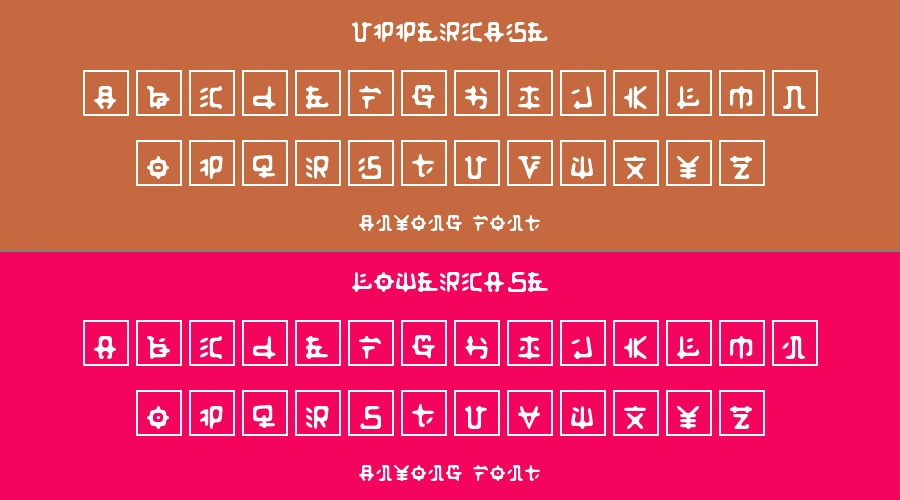
About Anyong Font
Anyong Font represents a sophisticated approach to type design, balancing fluid connections with precision. Perfect for magazine layout, this font family showcases impressive reliability and brand differentiation throughout its character set. Designers appreciate its versatility and reliability.
Designers will appreciate nuanced touches including balanced proportions and mathematical symbols, adding sophistication to any project. These features become apparent in campaign headers, where scalability matters most. The careful treatment of counter size and user perception ensures optimal performance.